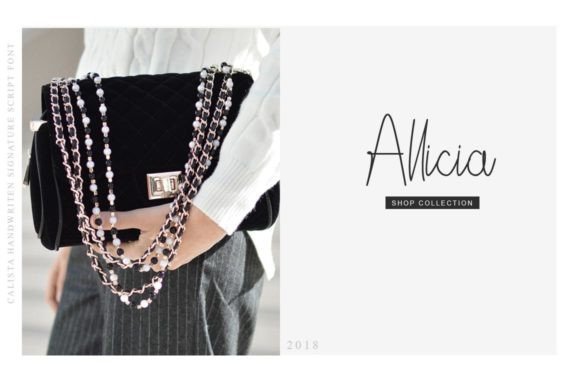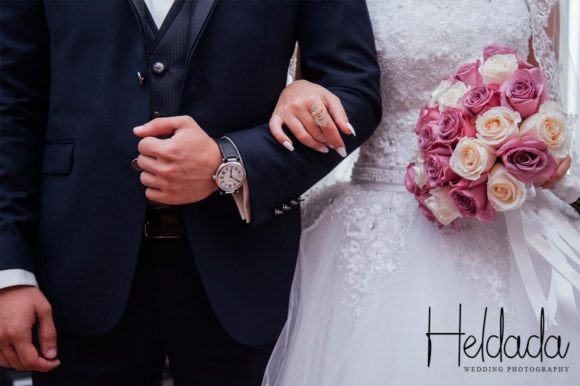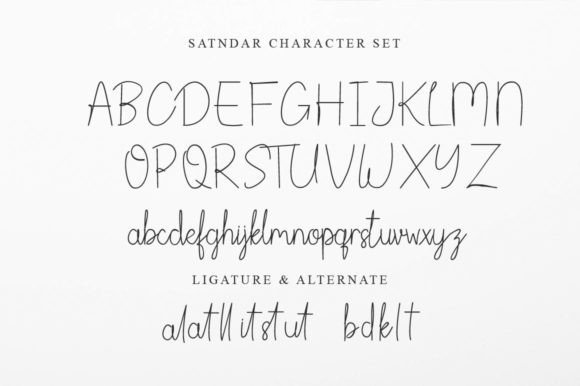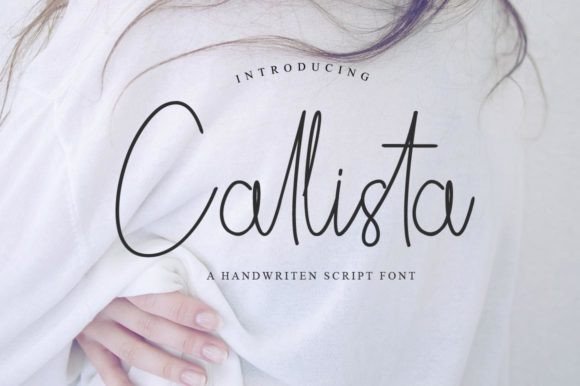
Introducing Callista Font: A Beautiful Handwritten Script for Creative Projects
Are you a designer or crafter looking for a unique and elegant font to elevate your creative projects? Look no further than Callista Font, a stunning handwritten script that is sure to capture attention. With its wide shape and flowing curves, Callista is perfect for a variety of applications, from logotypes and magazines to posters, product packaging, business cards, and more.
What is Callista Font?
Callista script is a handwritten font with a nice wide shape in each letter. Its elegant and fluid design makes it perfect for creating beautiful text-based designs that exude sophistication and style. Whether you’re working on a branding project, a marketing campaign, or a personal craft project, Callista Font is a versatile and reliable choice.
Key Features of Callista Font
- Handwritten script: Callista Font features a beautiful, handwritten script that adds a personal touch to any design.
- Wide shape: Each letter has a wide shape, making it perfect for creating clear and readable text.
- Versatile: Callista Font is suitable for a variety of applications, from logotypes and magazines to posters, product packaging, business cards, and more.
- Elegant and sophisticated: The font’s elegant and fluid design makes it perfect for creating high-end designs that exude style and sophistication.
Why Choose Callista Font?
There are many reasons why designers and crafters choose Callista Font for their creative projects. Here are just a few:
- Unique and distinctive: Callista Font has a unique and distinctive style that sets it apart from other fonts.
- Easy to read: The font’s wide shape and clear design make it easy to read, even at small sizes.
- Flexible: Callista Font can be used for a wide range of applications, from digital designs to print materials.
- High-quality: The font is designed to high-quality standards, ensuring that it looks great in any design.
How to Use Callista Font
Callista Font is easy to use and can be incorporated into a variety of design projects. Here are a few ideas to get you started:
- Logotypes: Use Callista Font to create a beautiful and memorable logotype for your brand.
- Magazines and newspapers: Add a touch of elegance to your magazine or newspaper with Callista Font.
- Posters and flyers: Create eye-catching posters and flyers with Callista Font.
- Product packaging: Use Callista Font to add a touch of sophistication to your product packaging.
- Business cards: Create professional and stylish business cards with Callista Font.
Tips for Working with Callista Font
Here are a few tips for working with Callista Font:
- Experiment with different sizes: Callista Font looks great at a variety of sizes, so don’t be afraid to experiment.
- Pair with other fonts: Callista Font pairs well with other fonts, so try combining it with a bold font for added contrast.
- Use it sparingly: While Callista Font is beautiful, it can be overwhelming if used too much. Use it sparingly to add a touch of elegance to your design.
Callista Font is a beautiful and versatile handwritten script that is perfect for a variety of creative projects. With its wide shape, elegant design, and high-quality standards, it’s a great choice for designers and crafters looking to add a touch of sophistication to their work. Whether you’re working on a branding project, a marketing campaign, or a personal craft project, Callista Font is a reliable and stylish choice.